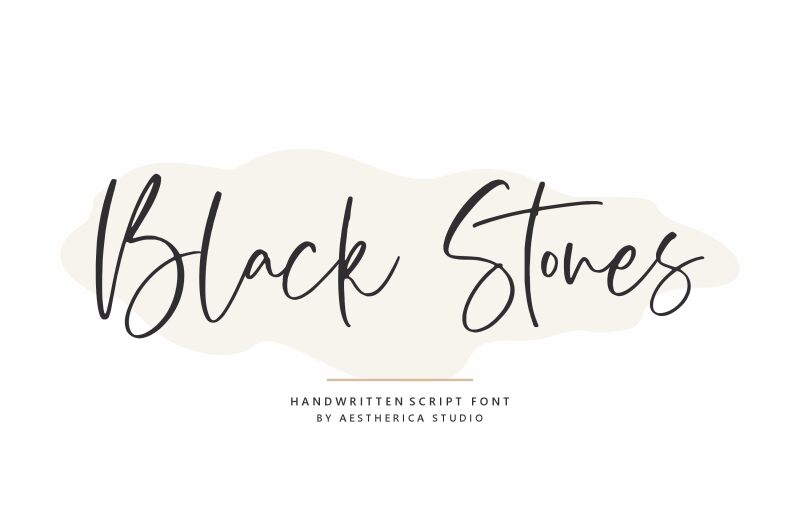
Black Stones
Black Stones, a creation by Aestherica Studio, is a fashionable and cool handwritten font. Its extra-light weight adds an ethereal touch to any project.
Fall in love with its incredibly distinct and timeless style as you use it to create eye-catching logos, elegant wedding invitations, captivating social media posts, and stunning website headers.
Let your creativity flow with Black Stones and watch your designs come to life with its unique charm.